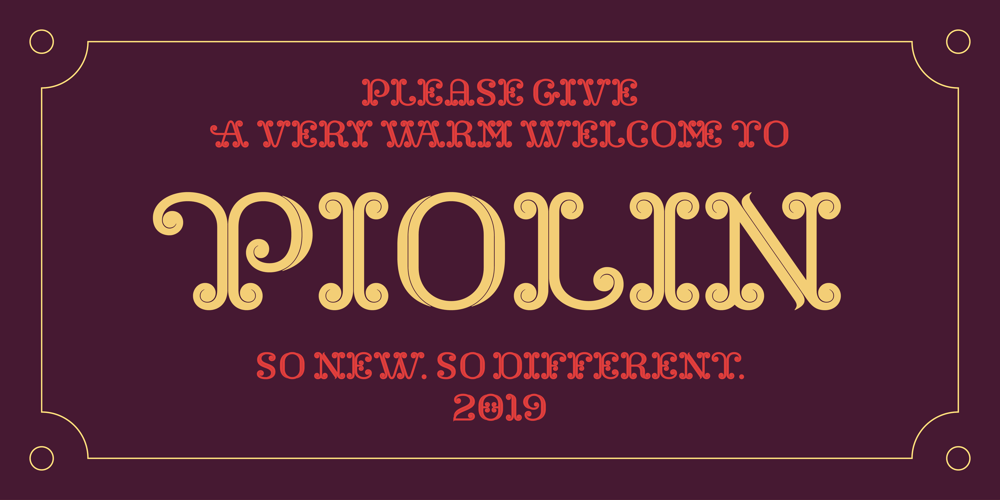
Piolin
Piolin font
Piolin Font Family was designed by Joel Vilas Boas and published by JVB. Piolin contains 1 styles and family package options. Piolin So new. So different. Piolin is a memorable display font inspired by the circus universe. This typeface, which has the same name of the most renowned brazilian clown, is full of magical tricks like several characters alternates, swashes and discretionary ligatures. Please, explore the opentype features included in this typeface at their best and go deep inside the circus imaginary. Piolin is suitable for brand identities, book design, editorial design, campaigns, exhibitions and other promotional materials that seek a special flavour to stand out an astonishing message. If used in big sizes, Piolin reveals its marvellous details which make us feel bewitched by how carefully it is designed. Feel the magic up close!